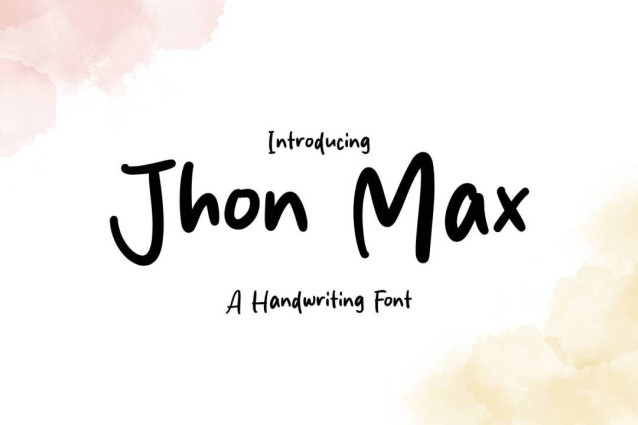
Jhon Max Font
Jhon Max Font is a simple and friendly handwritten font. Its natural and unique style makes it incredibly fitting to a large pool of designs. The only limit is your imagination!